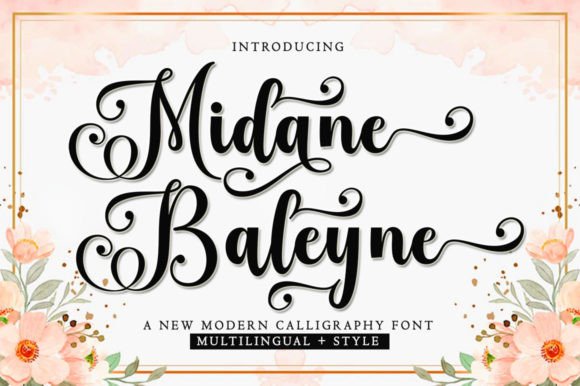
Venture into a world of elegance and charm with Midane Baleyne, a script font family destined to captivate your heart. Inspired by the timeless allure of handwritten notes, this font is meticulously crafted to infuse your designs with a touch of heartfelt warmth.
With its graceful strokes and beautifully connected characters, Midane Baleyne exudes an aura of sophistication that is sure to leave a lasting impression. Its meticulously crafted glyphs and strokes, accessible through PUA coding, provide endless possibilities for customization, allowing you to unleash your creativity and make your designs truly shine.
Whether you're crafting wedding invitations that whisper romance, designing logos that demand attention, or creating social media graphics that resonate with your audience, Midane Baleyne is your perfect companion. Its versatility extends beyond the ordinary, allowing you to effortlessly elevate any project with its timeless charm.
Imagine your wedding invitations adorned with the delicate curves of Midane Baleyne, conveying the love and joy of your special day with unmatched elegance. Picture your brand's logo standing out from the crowd, its unique charm attracting customers like moths to a flame. Envision your social media posts captivating your audience, their attention drawn to the captivating allure of Midane Baleyne.
With Midane Baleyne at your fingertips, the possibilities are endless. Its intuitive design ensures a seamless experience, allowing you to focus on your creative vision without the hassle of technical difficulties. Let your imagination soar as you explore the depths of this captivating font family, discovering new ways to express yourself and leaving a lasting impression on all who encounter your designs.
So, embark on a creative journey with Midane Baleyne, a font family that embodies elegance, charm, and versatility. Transform your designs into captivating masterpieces, leaving your audience spellbound by the beauty of your creations. Download Midane Baleyne today and unleash the boundless potential of your imagination.